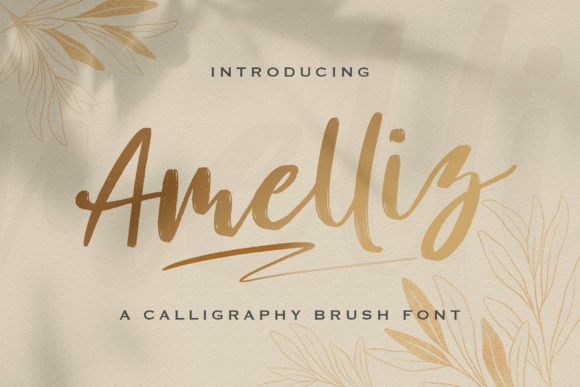
Introducing Amelliz Font: The Elegant Handwritten Font for Creative Designs
Are you looking for a font that exudes elegance and sophistication? Look no further than Amelliz Font, a beautiful handwritten font created with the help of an elegant brush pen. This stunning font is incredibly versatile and perfect for a wide range of design projects, from wedding invitations and stationary art to social media posts and more.
The Story Behind Amelliz Font
Amelliz Font is a labor of love, carefully crafted to bring a touch of elegance and refinement to your designs. The font’s creator used an elegant brush pen to write out each letter, resulting in a fluid and natural look that is both beautiful and unique. The result is a font that is perfect for designers and crafters who want to add a personal touch to their work.
Key Features of Amelliz Font
- Handwritten with love: Amelliz Font is a true handwritten font, created with a brush pen to give it a personal and elegant feel.
- Versatile style: This font is incredibly versatile and can be used for a wide range of design projects, from formal wedding invitations to social media posts and more.
- Elegant and refined: Amelliz Font exudes elegance and sophistication, making it perfect for designers and crafters who want to create beautiful and refined designs.
Uses for Amelliz Font
Amelliz Font is perfect for a wide range of design projects, including:
- Wedding invitations: Create beautiful and elegant wedding invitations that will set the tone for your special day.
- Stationary art: Use Amelliz Font to create stunning stationary art, including greeting cards, thank you cards, and more.
- Social media posts: Add a touch of elegance to your social media posts with Amelliz Font, perfect for businesses and individuals who want to stand out online.
- Branding and packaging: Use Amelliz Font to create beautiful and elegant branding and packaging materials, including logos, labels, and more.
Tips for Using Amelliz Font
Here are a few tips for using Amelliz Font in your designs:
- Experiment with different sizes: Amelliz Font looks great in a variety of sizes, from large headings to smaller body text.
- Pair with other fonts: Try pairing Amelliz Font with other fonts to create a unique and interesting look.
- Use it for headlines and titles: Amelliz Font is perfect for headlines and titles, where its elegant and refined style can really shine.